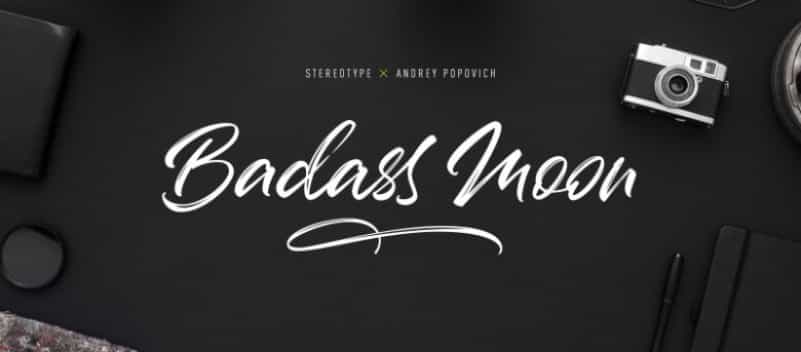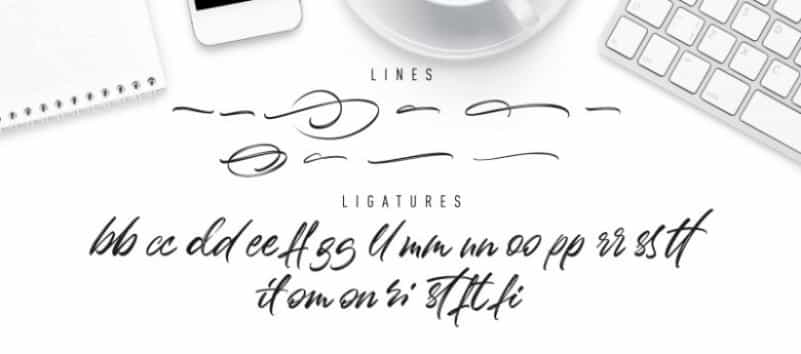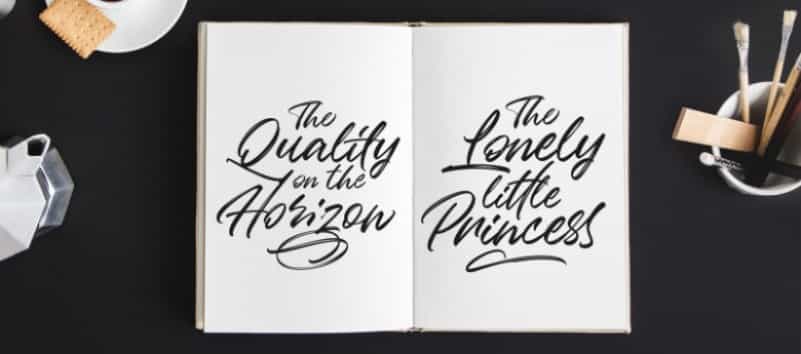
Introducing Badass Moon Font! It is created and distributed by StereoType. Badass Moon is a cool script font created by Andrey Popovich who has the lettering work of it. It’s works very well on greetings cards, invitations, weddings, posters, magazines, fashion world, brands and logos, packaging, and so on.